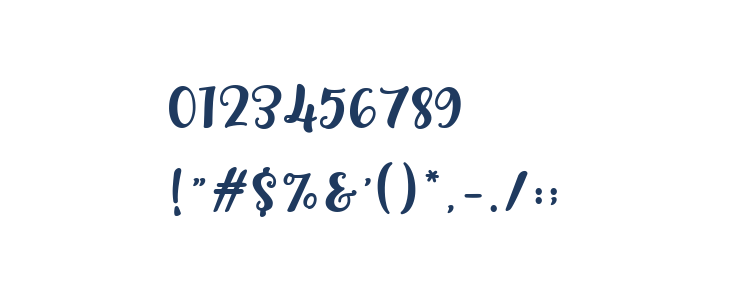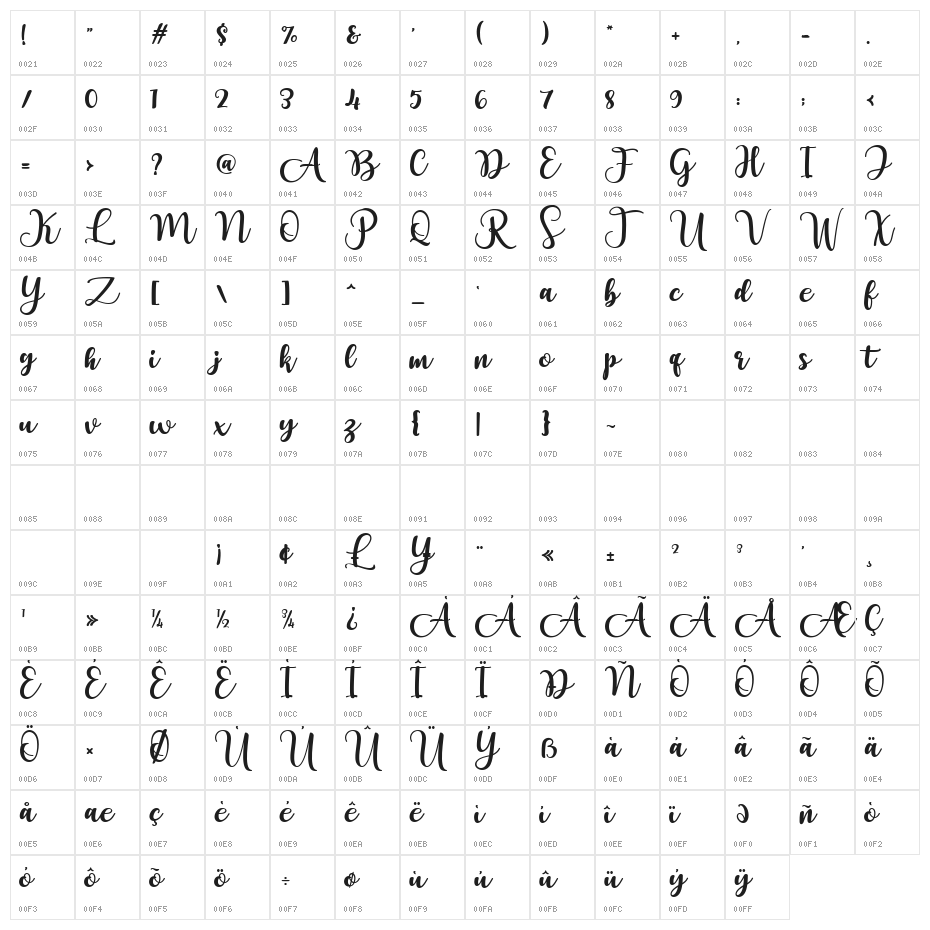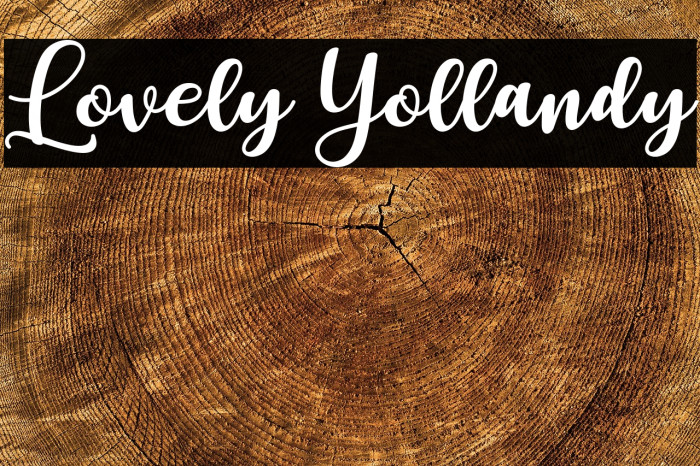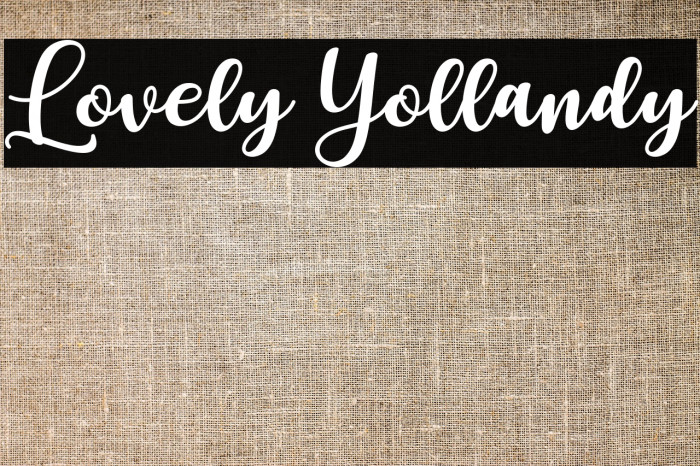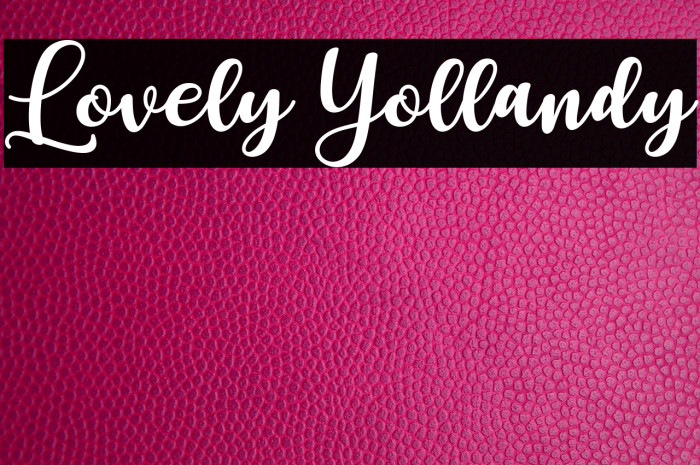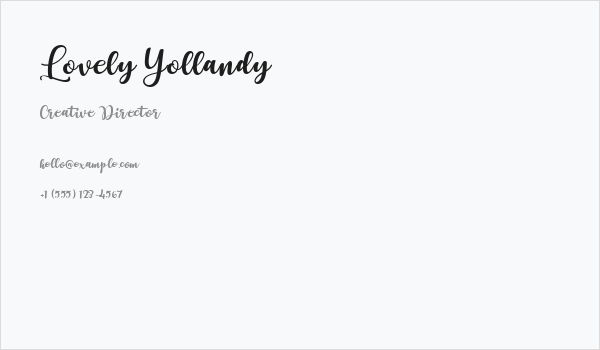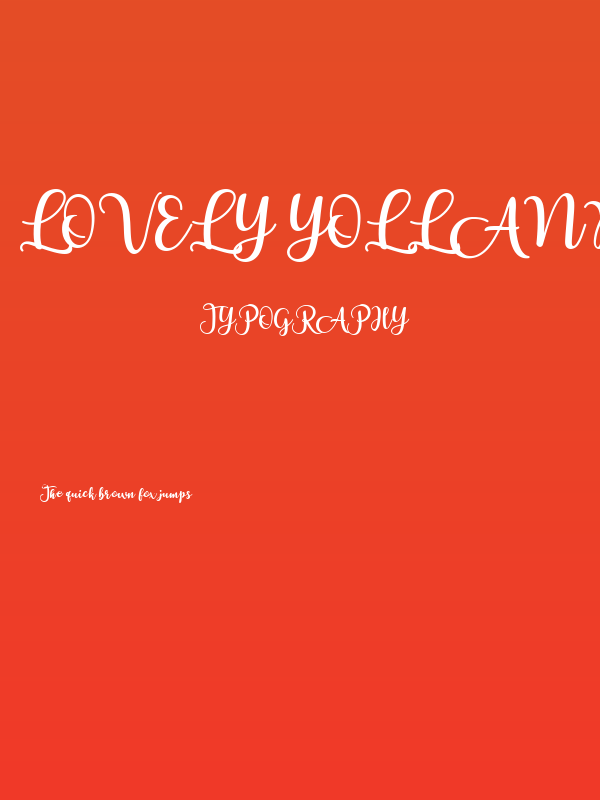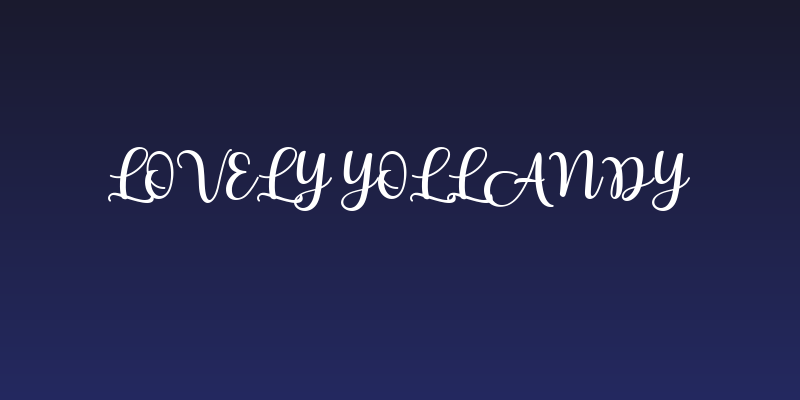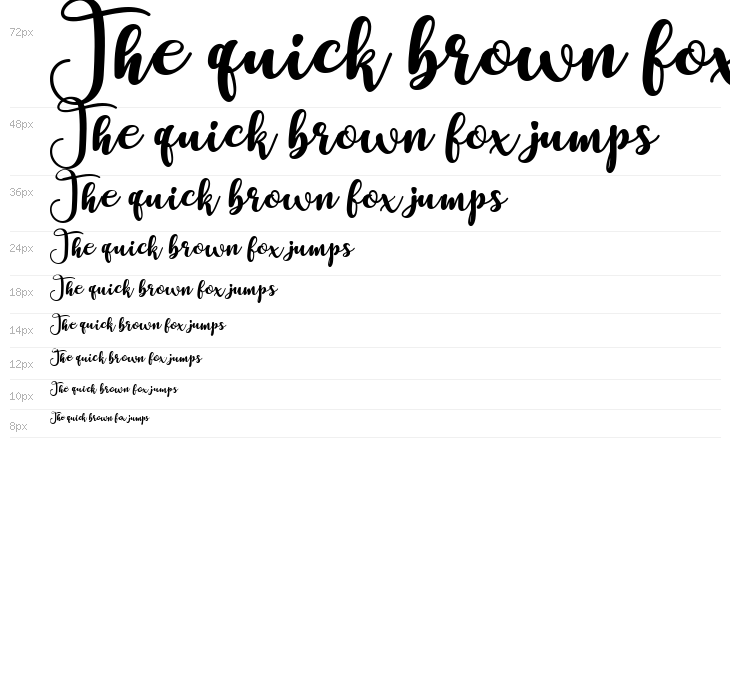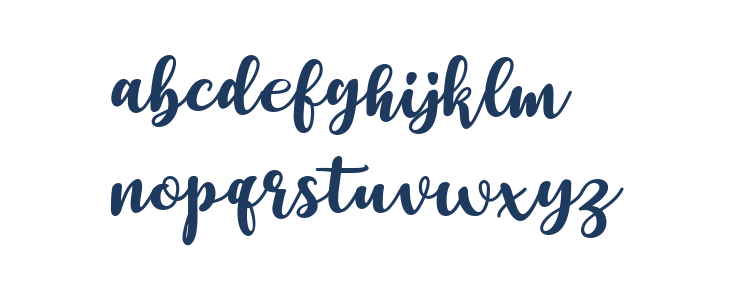
Lovely Yollandy Font
Lovely Yollandy Description
This font features a charming and flowing script style, characterized by its elegant and cursive letterforms. The uppercase letters exhibit a graceful loop and swirl, adding a touch of sophistication and flair. The lowercase letters maintain a consistent flow, with smooth connections between each character, enhancing its readability while retaining a stylish appearance. The numerals are crafted with the same fluidity, ensuring they blend seamlessly with the alphabetic characters. Special characters are thoughtfully designed to match the overall aesthetic, making this font versatile for various creative applications. Its bold strokes and high contrast between thick and thin lines give it a dynamic and eye-catching presence, perfect for making a statement.